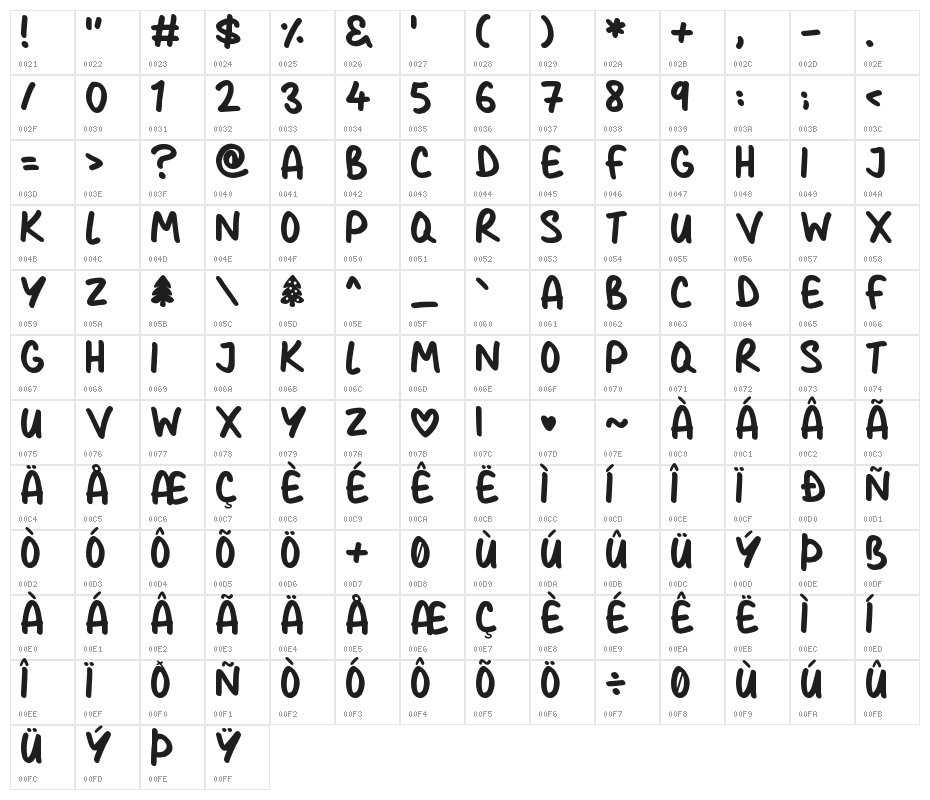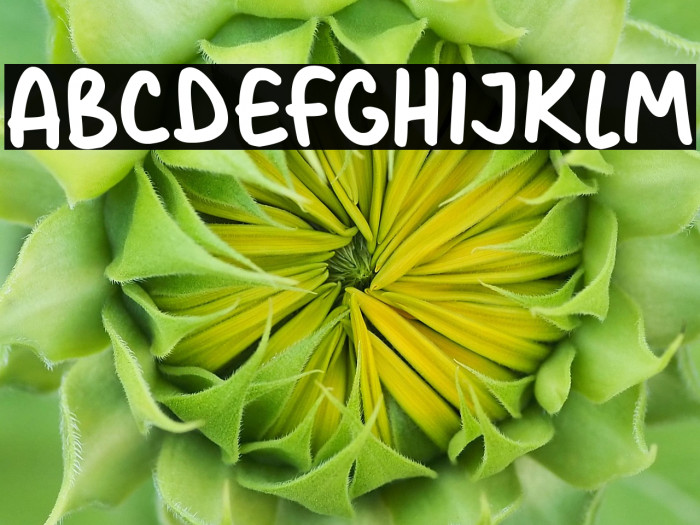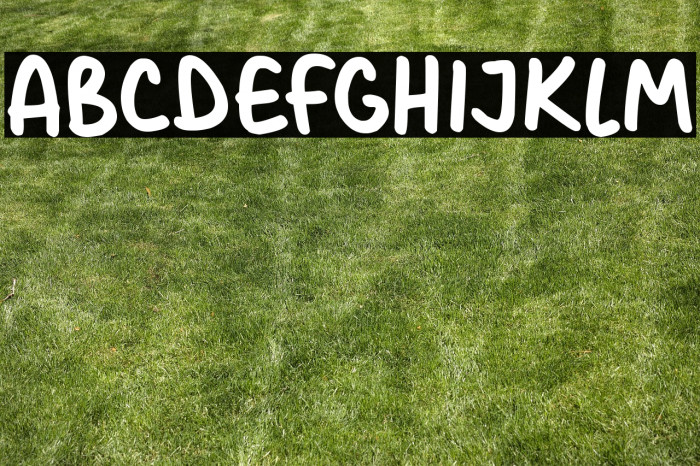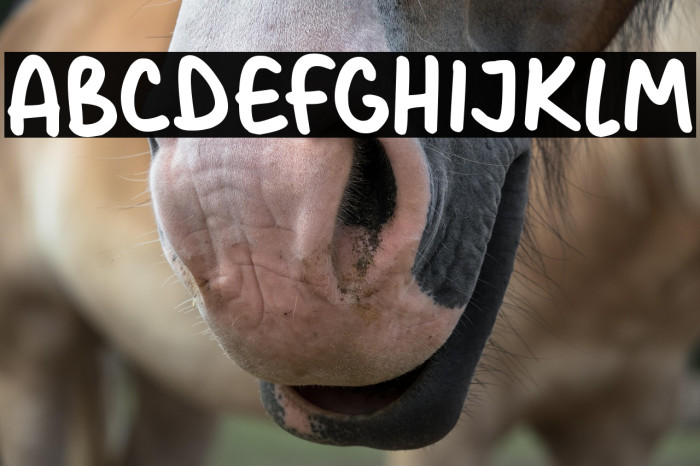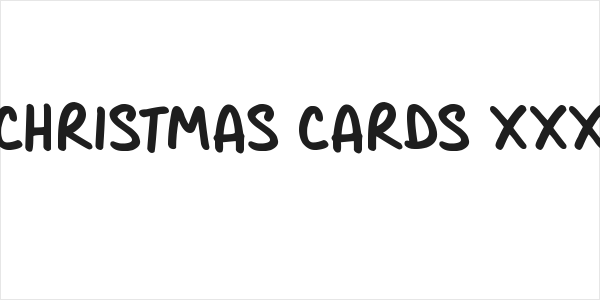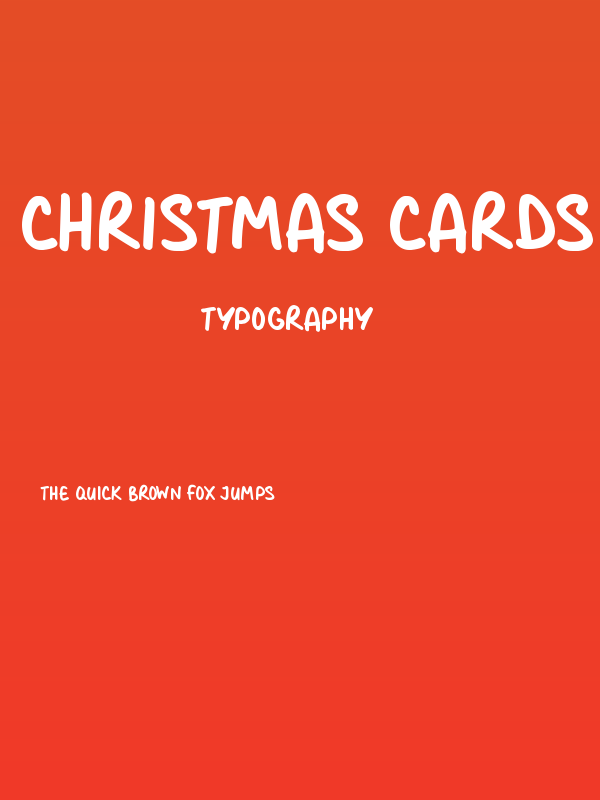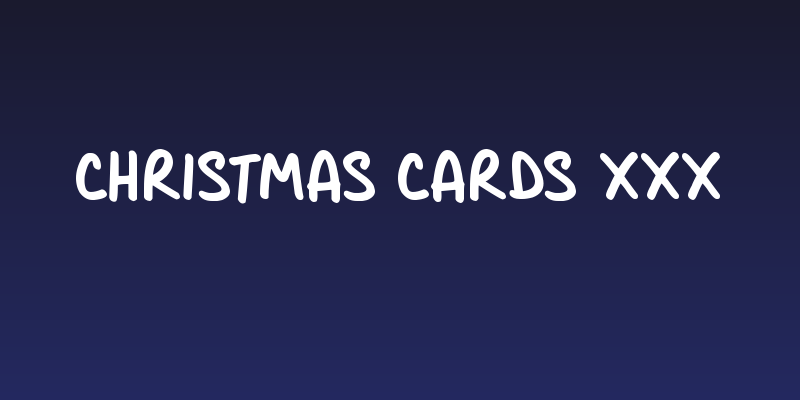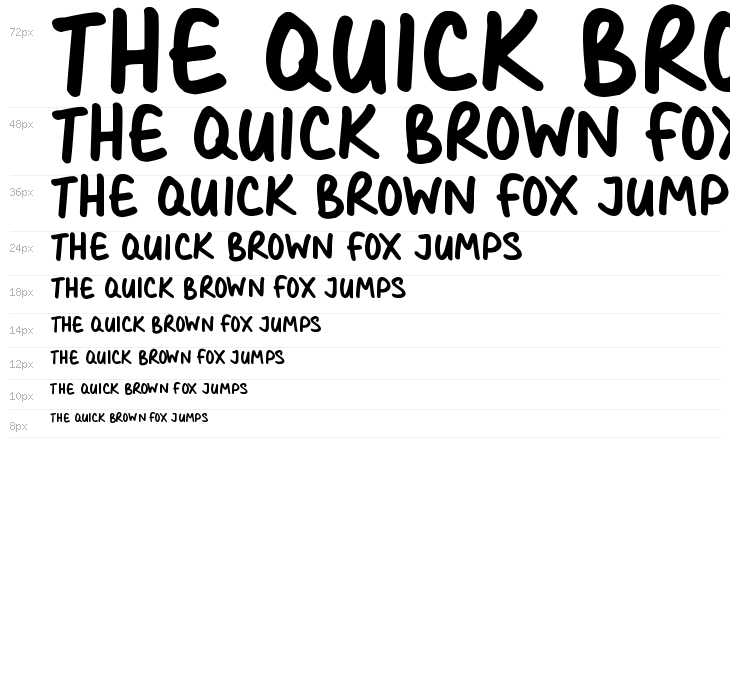
Christmas Cards xxx Font
Christmas Cards xxx Description
This playful and bold font exudes a casual, handwritten style with a touch of whimsy. The characters are rounded and slightly irregular, giving them a friendly and approachable appearance. The strokes are thick and consistent, providing a strong visual impact. The font maintains a uniform weight across all characters, ensuring readability while adding a fun, informal vibe. The spacing between characters is moderate, allowing for clear legibility without appearing too tight or too loose. This font is perfect for projects that require a personal touch, such as greeting cards, invitations, or playful branding.
| Use Case | Greeting cards, Invitations, Playful branding |
| Proposed Projects | Ideal for greeting cards, invitations, playful branding, and children's books. |